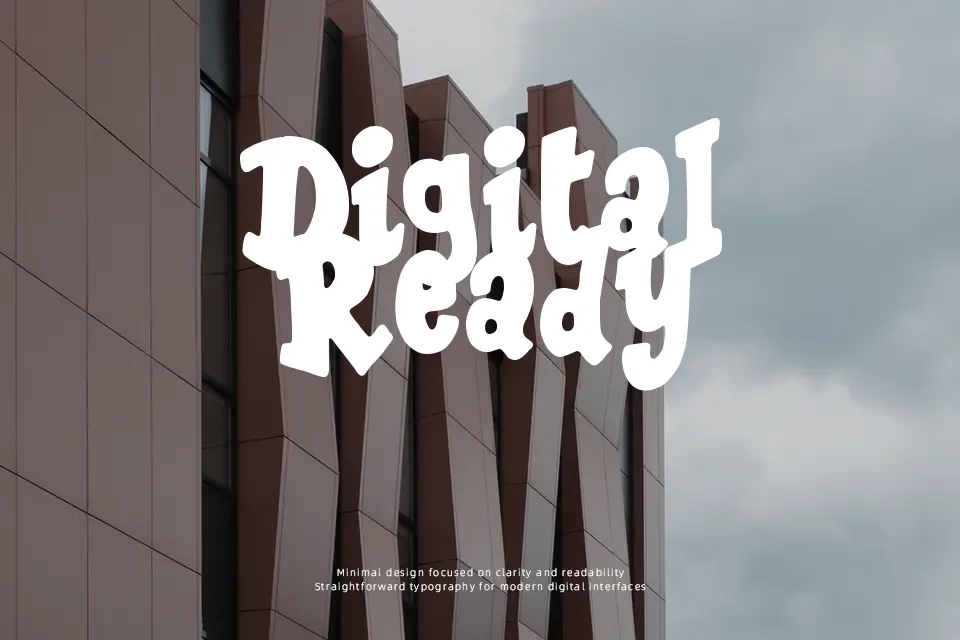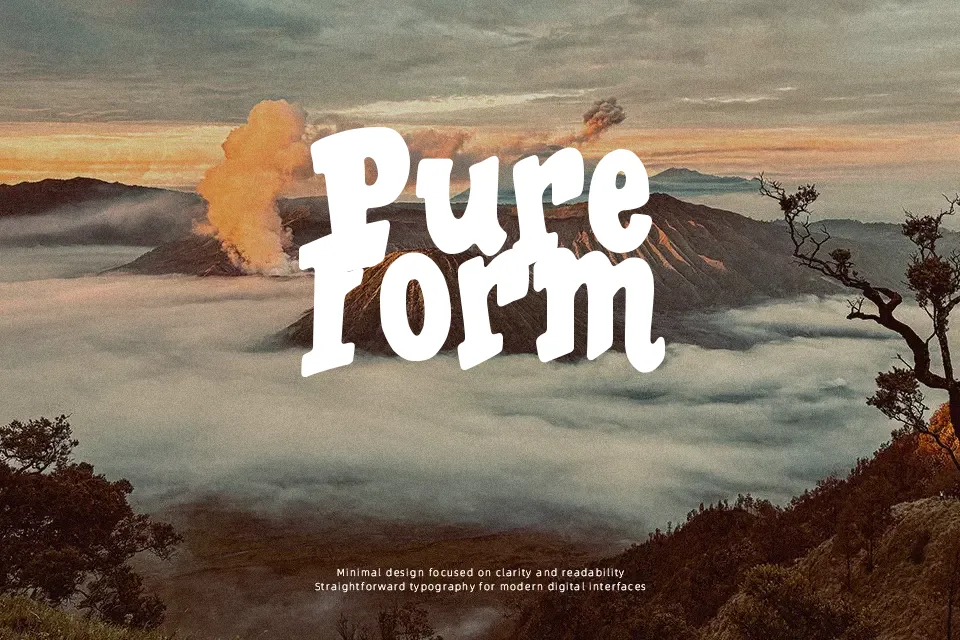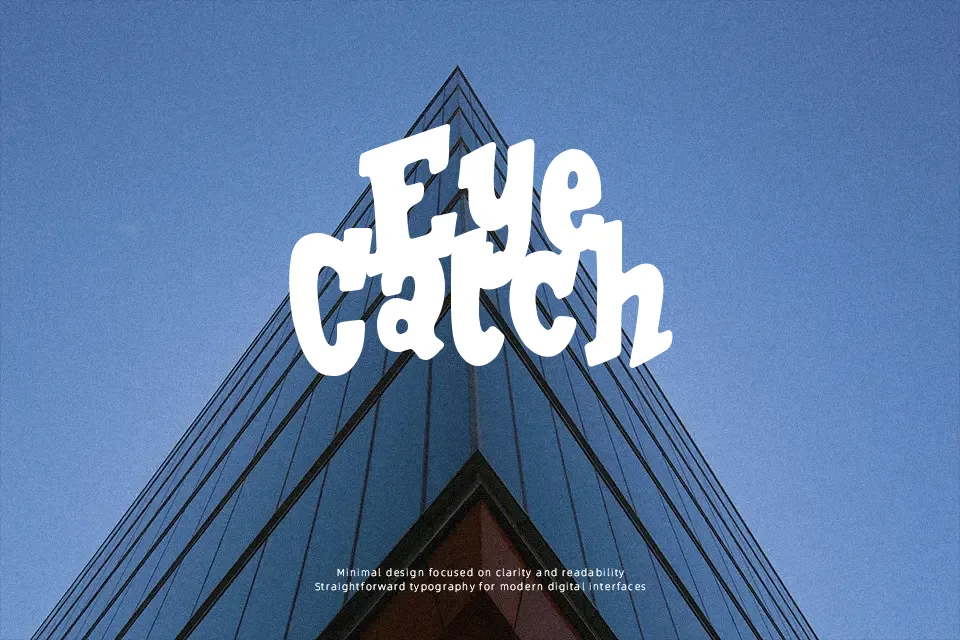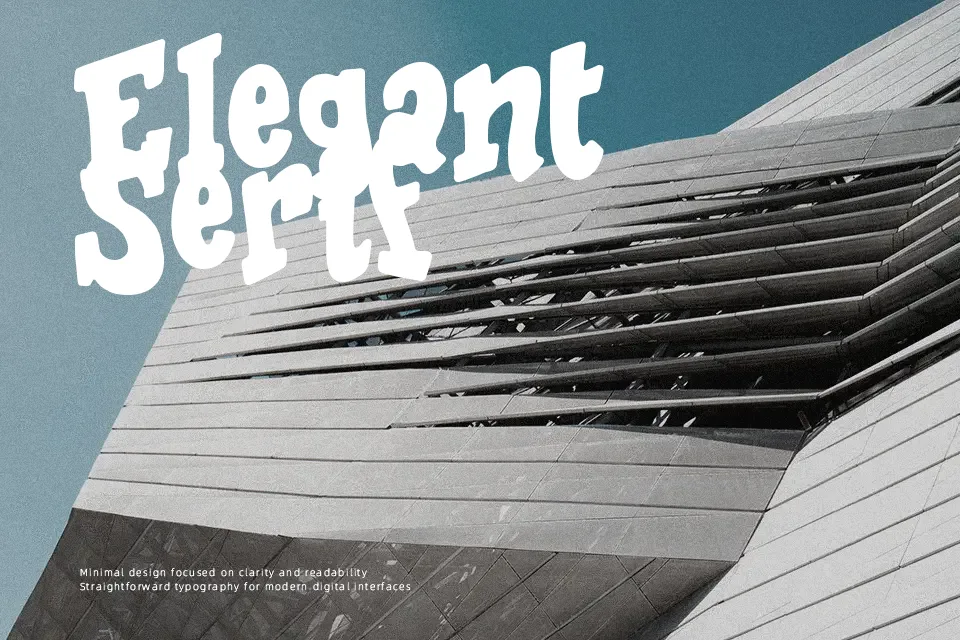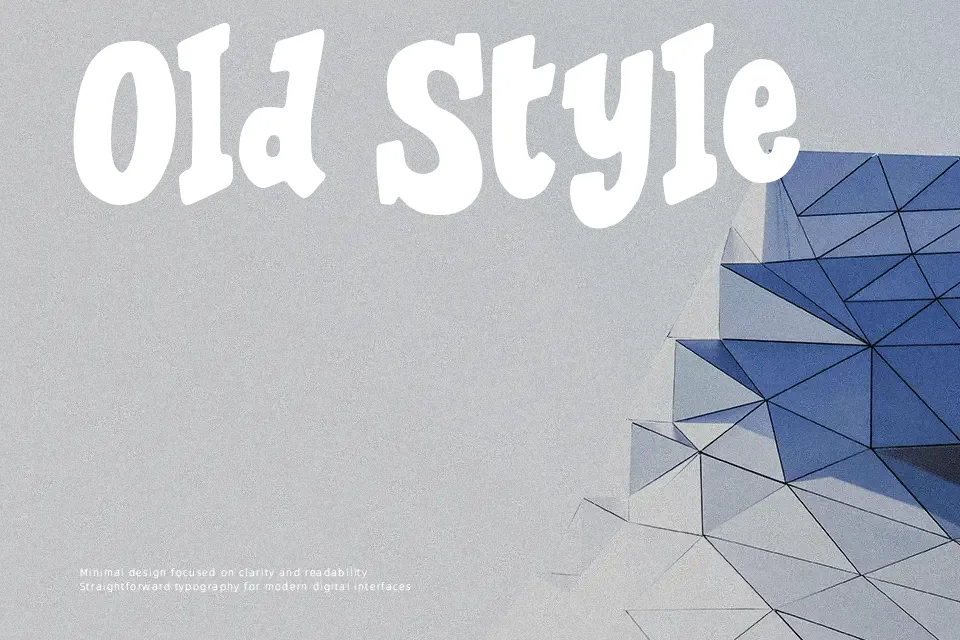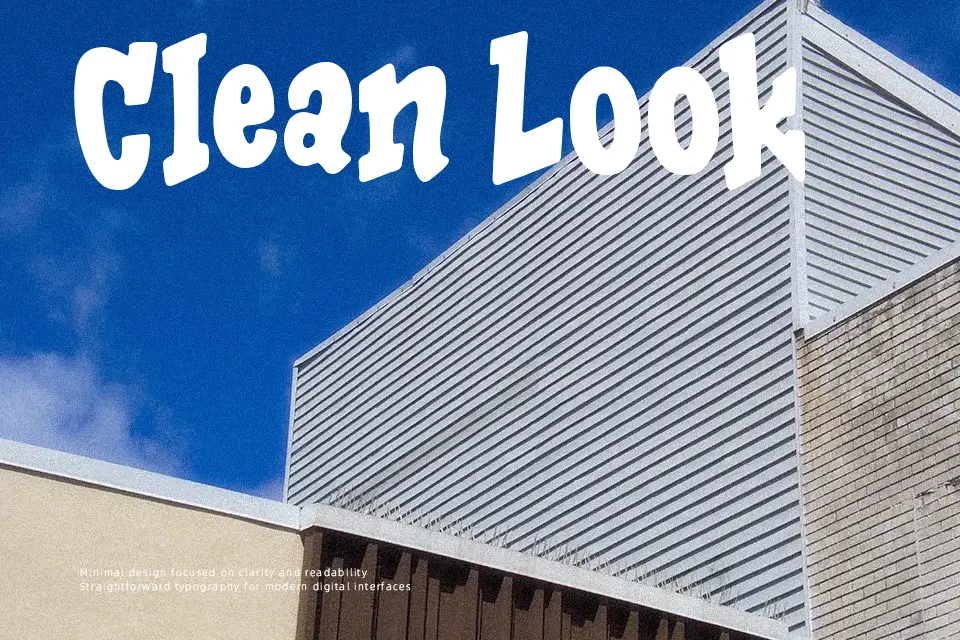
The Last Comic On Earth Font
The Last Comic On Earth Font establishes an energetic display presence through heavy stroke weights, softened comic contours, and dynamic character proportions. Generous inner counters preserve letter identification, while slightly irregular baseline alignments reinforce an informal, hand-lettered atmosphere. Spacing remains relatively tight to maintain visual cohesion across short titles. The letterforms remain easy to distinguish in short display text, making the typeface highly impactful for animated title screens and juvenile publications. However, the exaggerated stroke bulk and lively outlines become visually overwhelming in continuous paragraphs, rendering the design unsuitable for extended reading.
Best For: children book titles, animated game logos, comic book covers, cartoon poster headlines
Not Ideal For: continuous body text, mobile interface labels, legal disclaimers, editorial body paragraphs